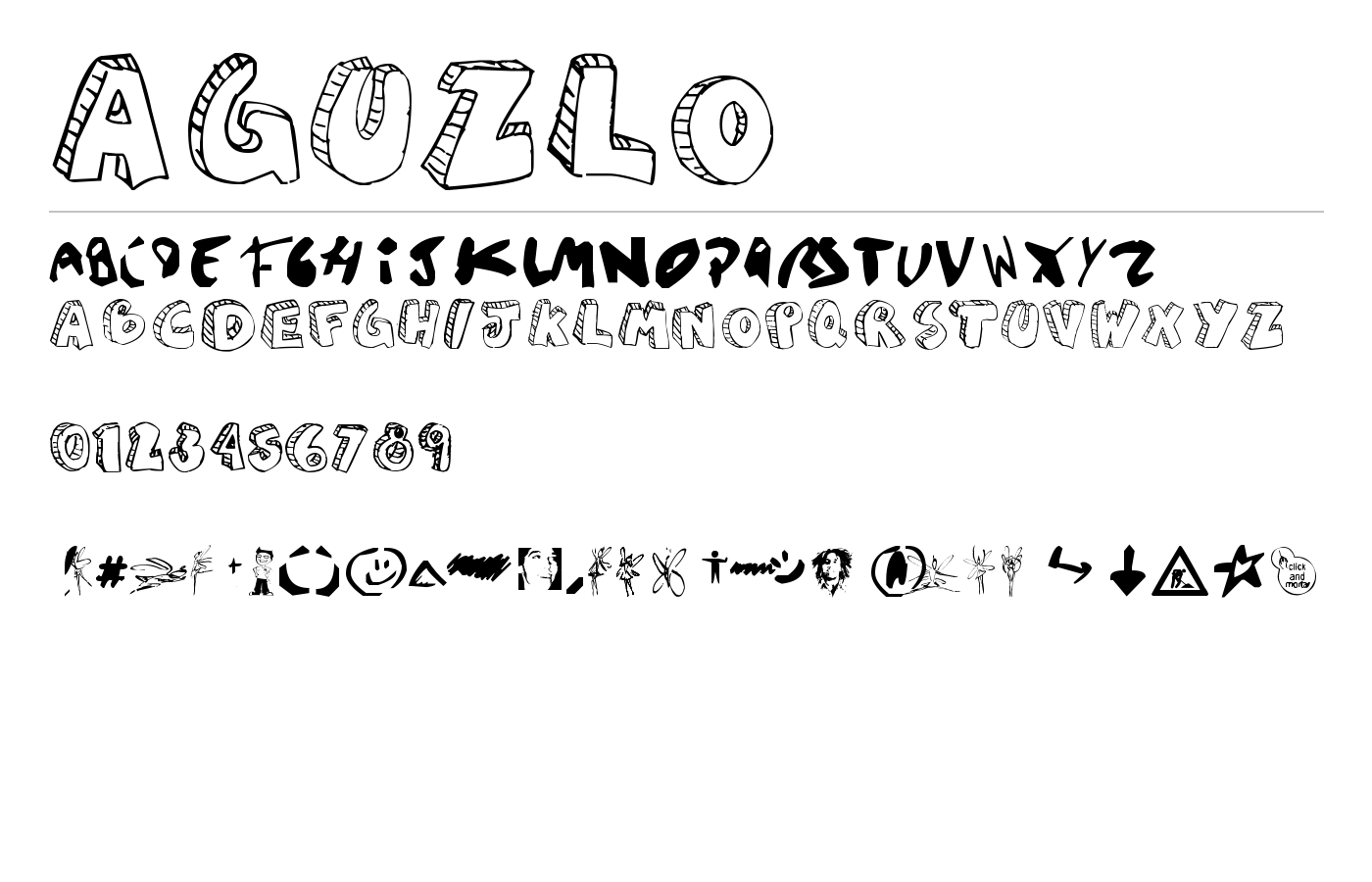
Aguzlo is a playful, hand-drawn display font with bold, irregular letterforms that create a fun and whimsical feel. Its varied line thickness and sketch-like texture give it an informal, artistic personality, perfect for creative projects, children’s designs, or quirky branding. This font works best for headlines, posters, and logos where a lively and unique style is desired.
aguzlo Font
About aguzlo Font